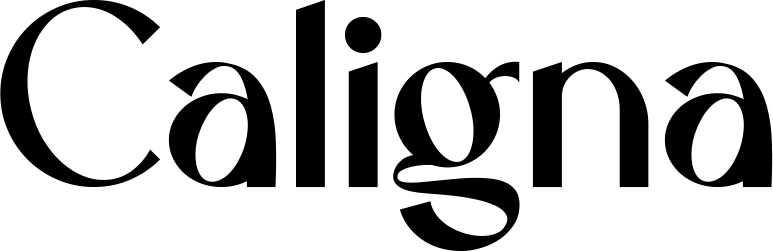
Caligna Font
With a classy, friendly, and of course modern figure, it is waiting for the sincere hosting of designing your print text, cards, branding, logo, website, posters, and so on. The Caligna sans serif font in the company of…
With a classy, friendly, and of course modern figure, it is waiting for the sincere hosting of designing your print text, cards, branding, logo, website, posters, and so on. The Caligna sans serif font in the company of cute round design assembles playful and approachable moods ready to bring satisfaction in creating any standard text.